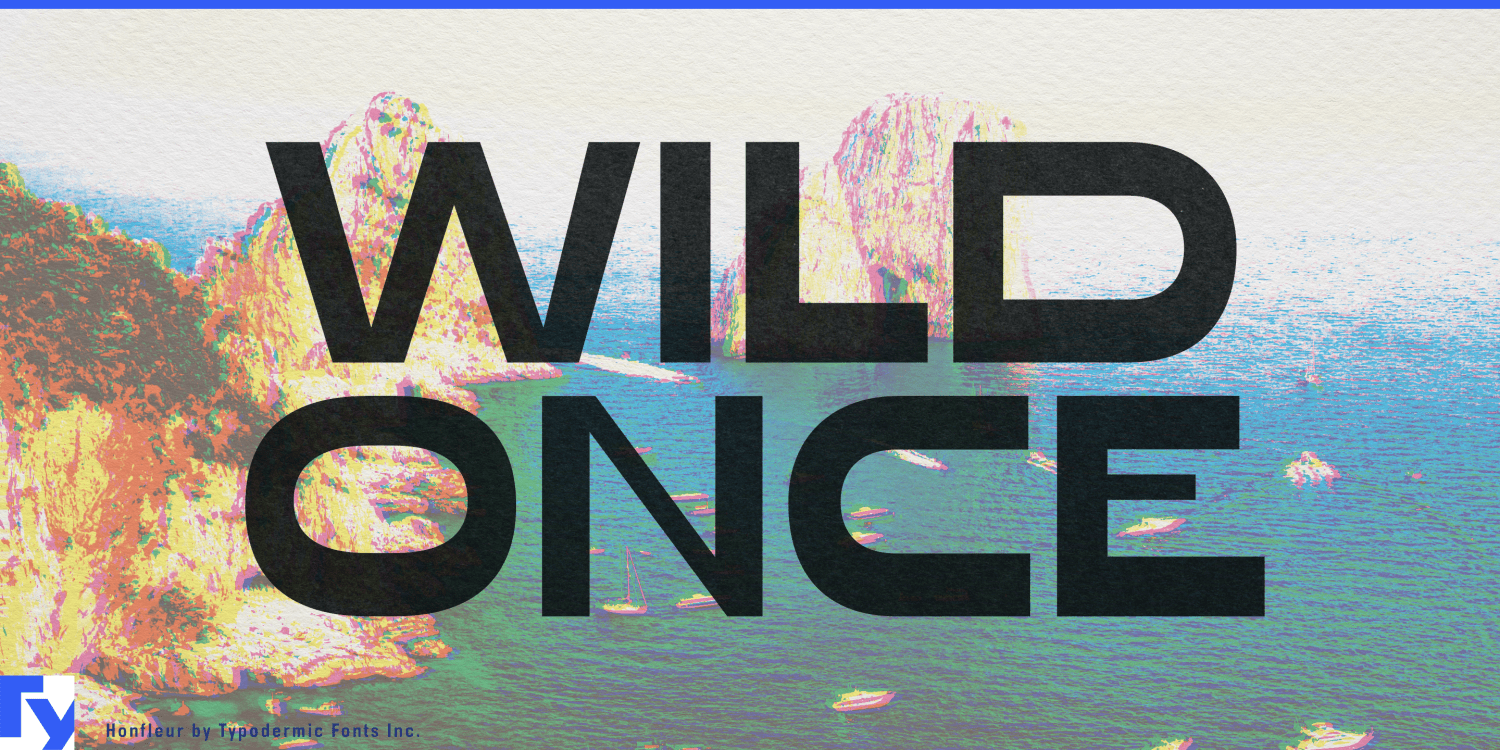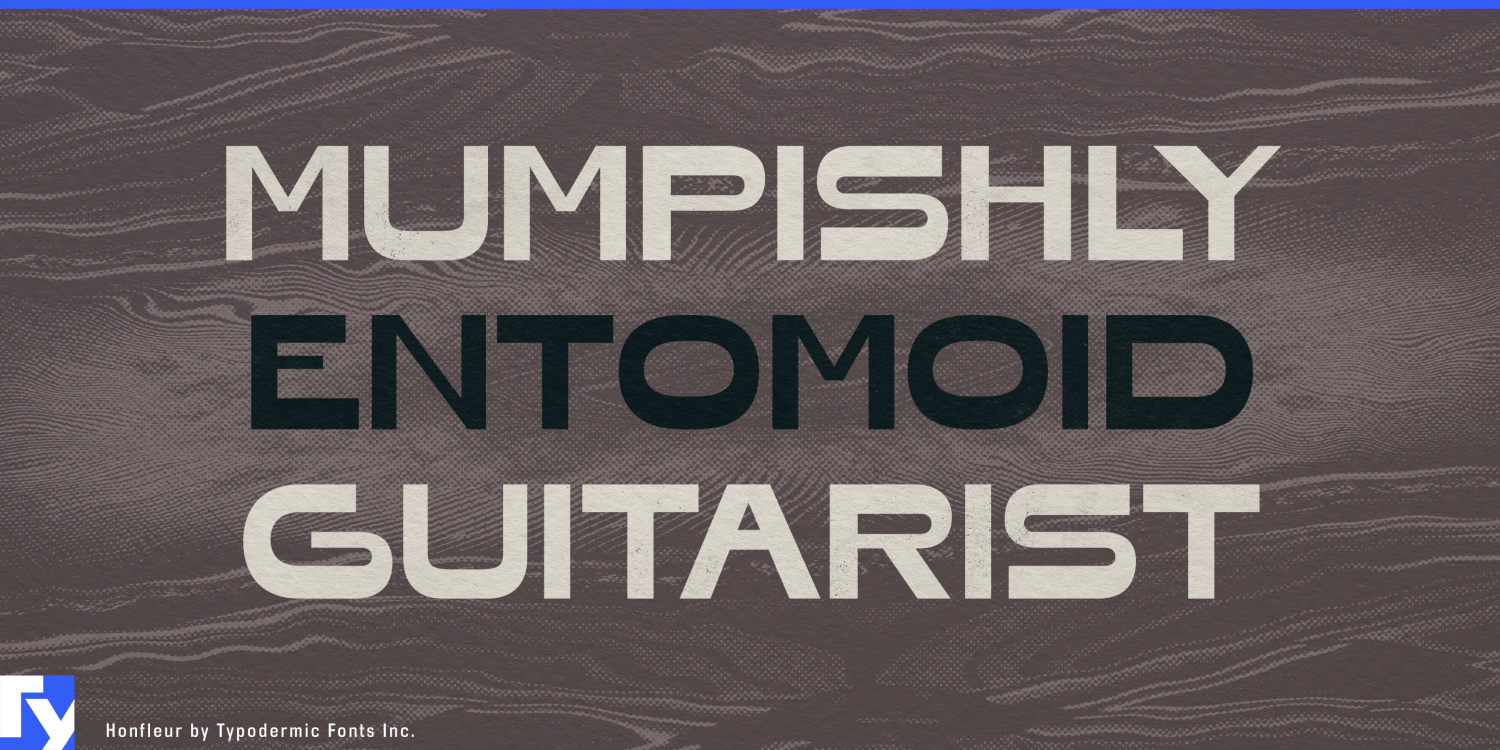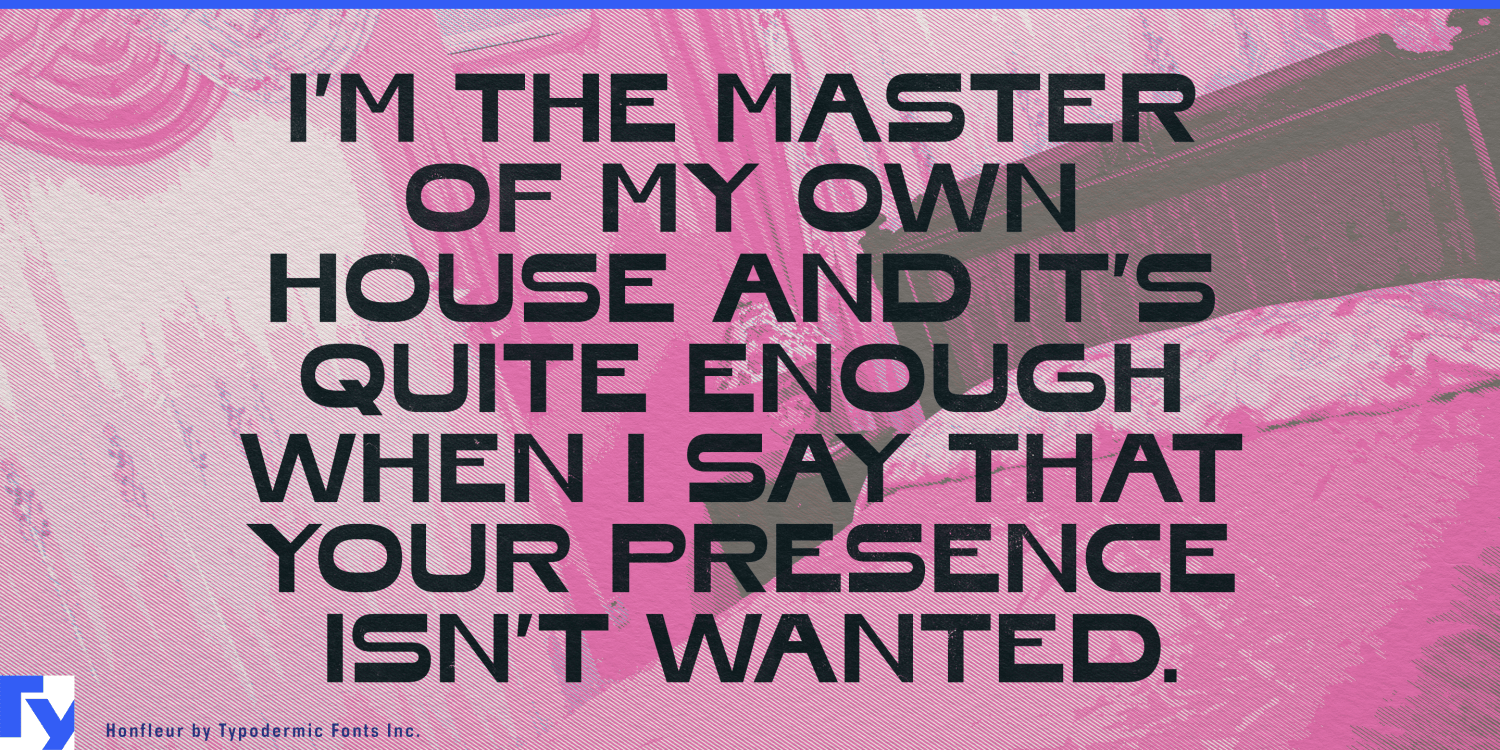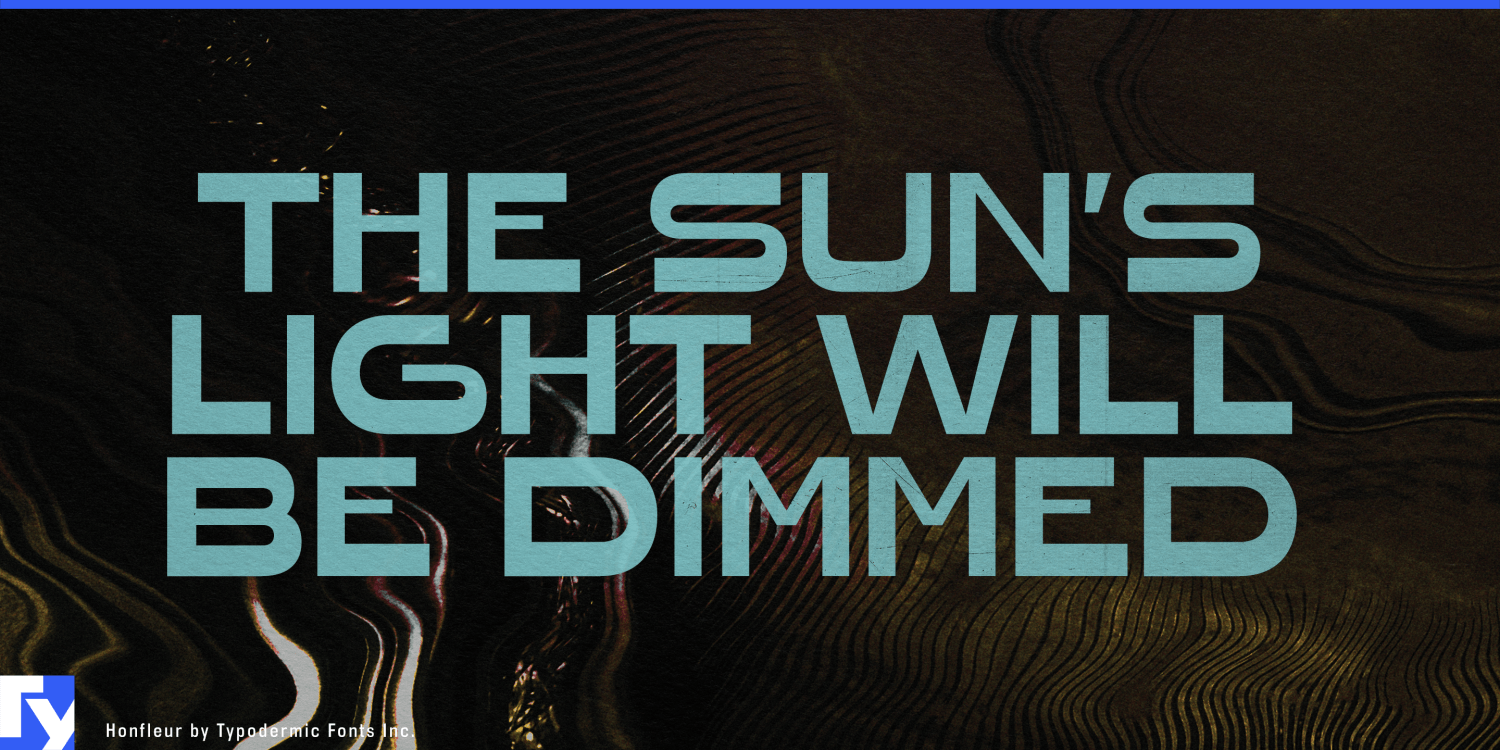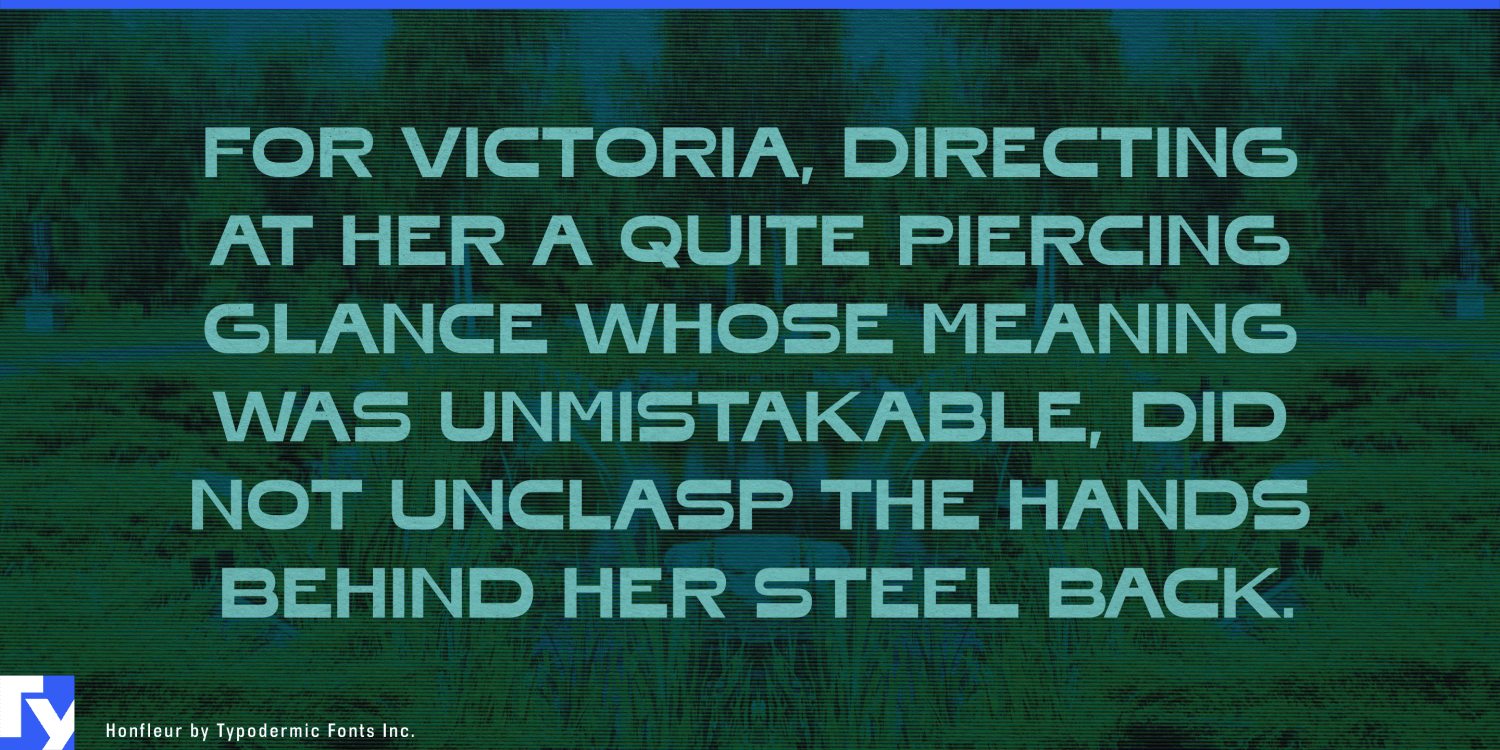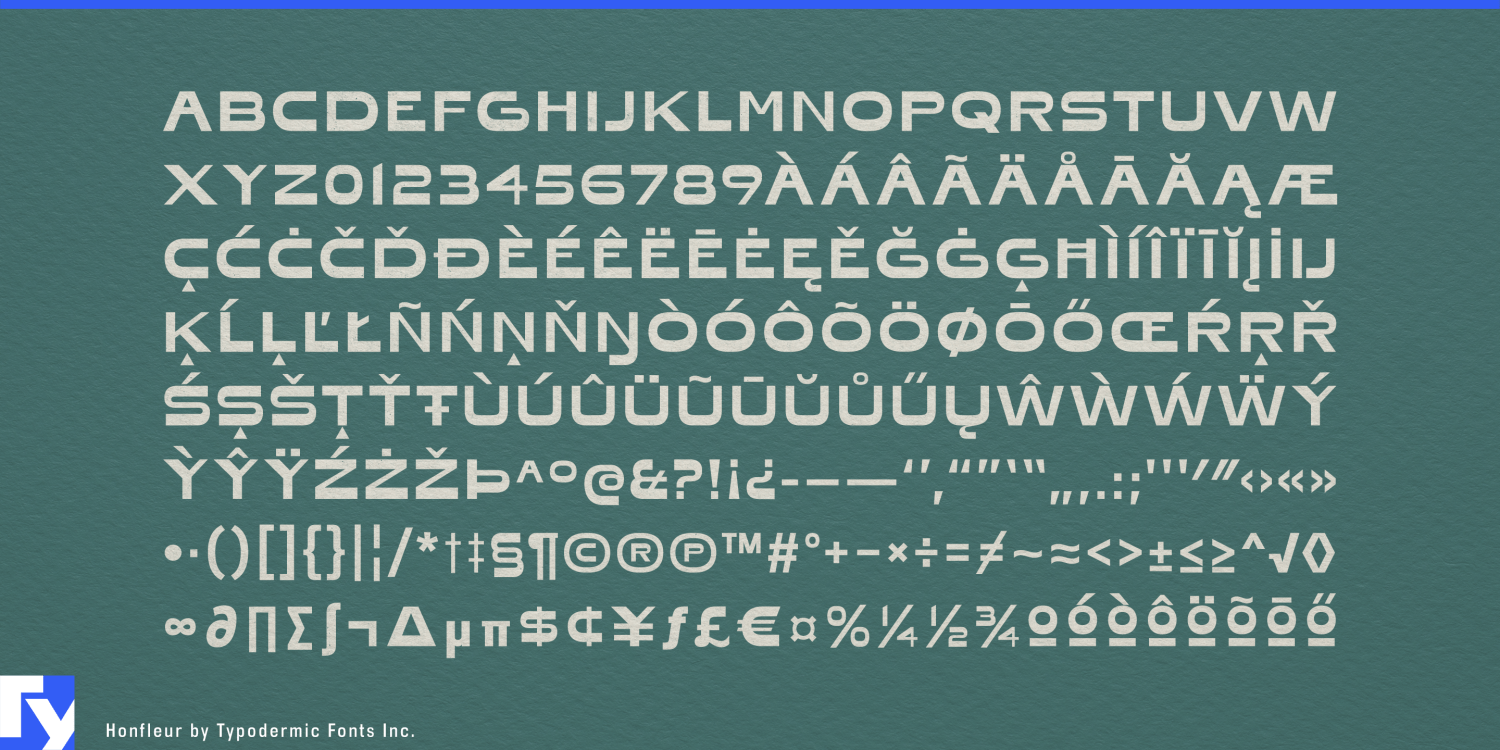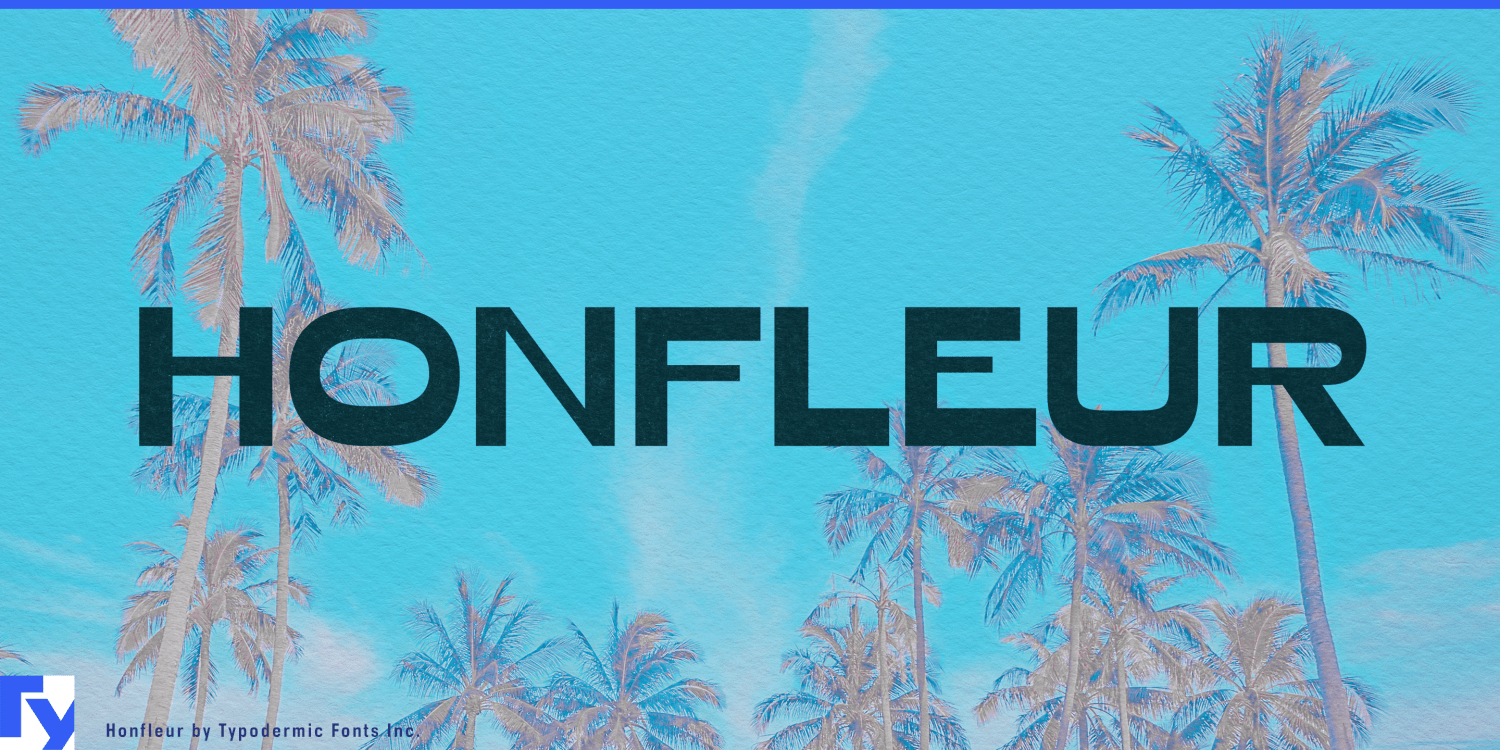
Indulge your senses in the opulent world of Honfleur, a typeface that doesn’t merely adorn your designs—it elevates them to the realm of haute couture. Born from the whispered elegance of a vintage perfume poster, Honfleur is the typographic…